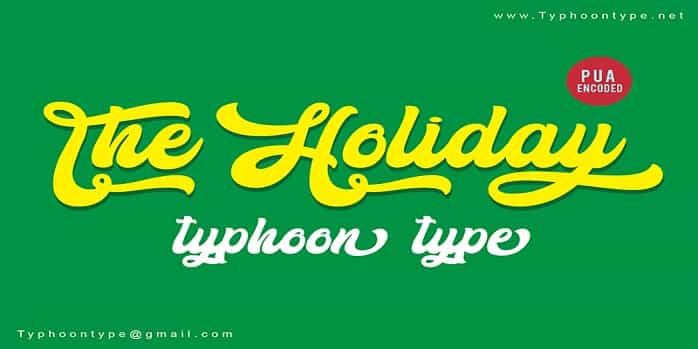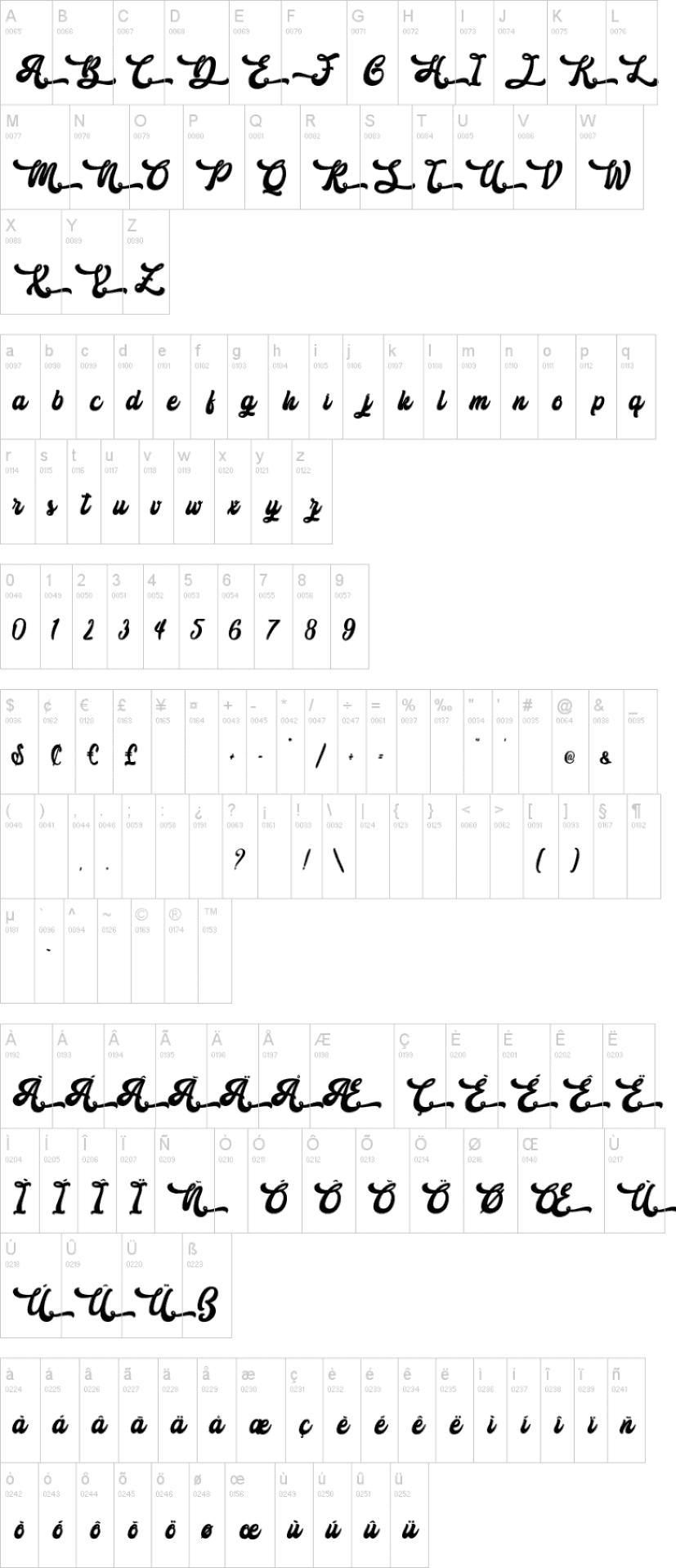
The Holiday is a bold cursive letter, and the boldness makes it perfect for designing.Its bold letters make The Holiday perfect to create eye-popping designs with tags or bags and so forth, and as yet its new logo hangs at no cost.It has scope to be used in work for clients on anything